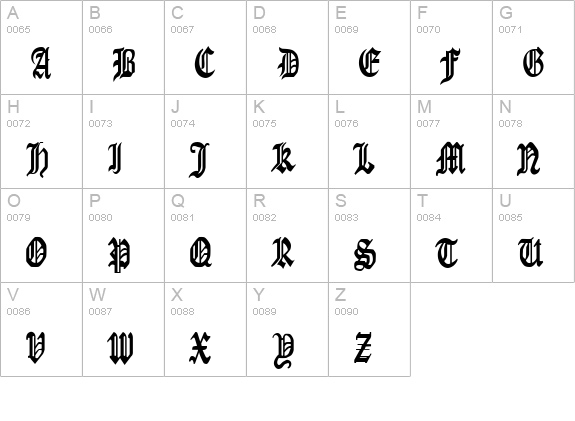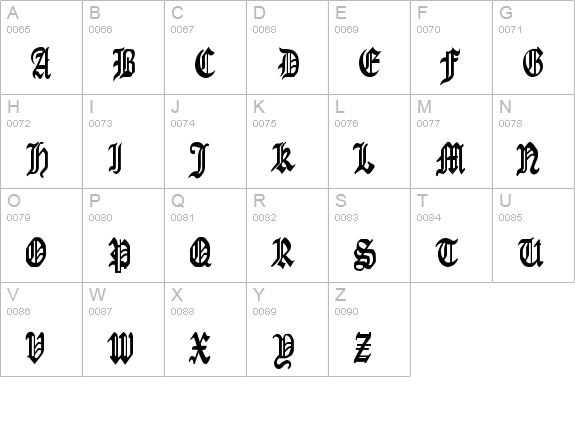
ManuscriptCondensed Normal Font Details
ManuscriptCondensed Normal is the standard, neutral variant in the ManuscriptCondensed typeface family \xE2\x80\x94 well suited to general body text, paragraphs, and standard typographic work.
ManuscriptCondensed Normal font is a stylish and versatile typeface that exudes elegance and sophistication. With its condensed design, it is perfect for projects that require a compact and space-saving layout. This font is meticulously crafted with clean lines and smooth curves, making it pleasing to the eye and easy to read. The ManuscriptCondensed Normal font is ideal for a wide range of design projects, including posters, invitations, logos, headlines, and more. Its versatility allows it to be used in both digital and print media, making it a valuable asset for any designer or creative professional. One of the best things about ManuscriptCondensed Normal font is that it is available for free. Yes, you read that right - this font can be freely downloaded at FontsMarket.com. This means that you can enhance your designs and add a touch of elegance without breaking the bank. Whether you are a professional designer or a hobbyist, having access to high-quality fonts like ManuscriptCondensed Normal font can truly elevate your work. So why wait? Visit FontsMarket.com now and download ManuscriptCondensed Normal font for free. Start creating stunning designs that will captivate and engage your audience. With its timeless appeal and effortless charm, this font will surely become a favorite in your design arsenal. Don't miss out on this amazing opportunity to enhance your projects with a free and fabulous font like ManuscriptCondensed Normal.